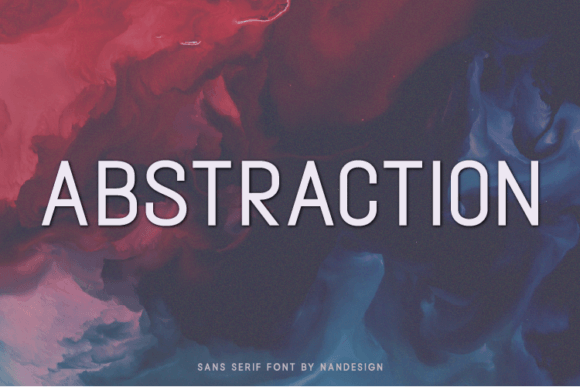
Introduction to Abstraction Font
Abstraction is a stunning sans serif to complement every project you’re working on.
Use it to create beautiful headings, gorgeous invitations, stunning logos, and so much more Perfect for displays, headers, invitations, save-the-dates, weddings, and so much more.